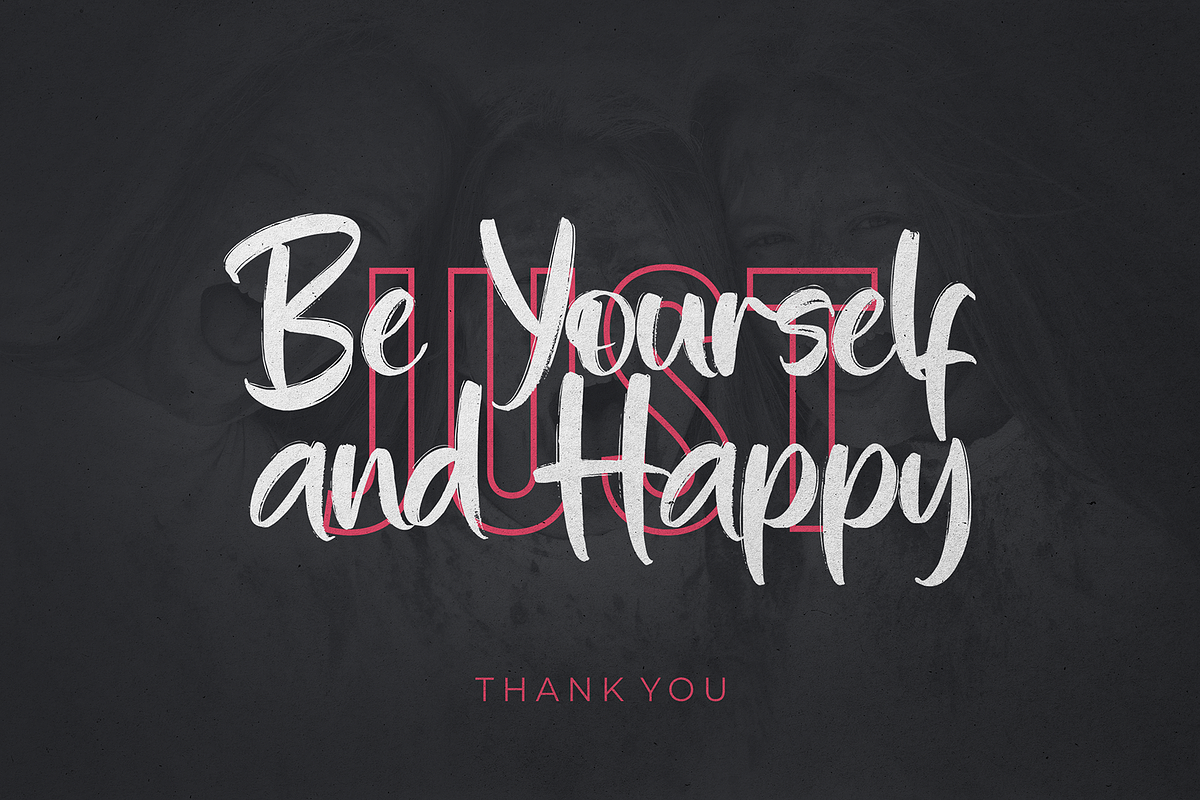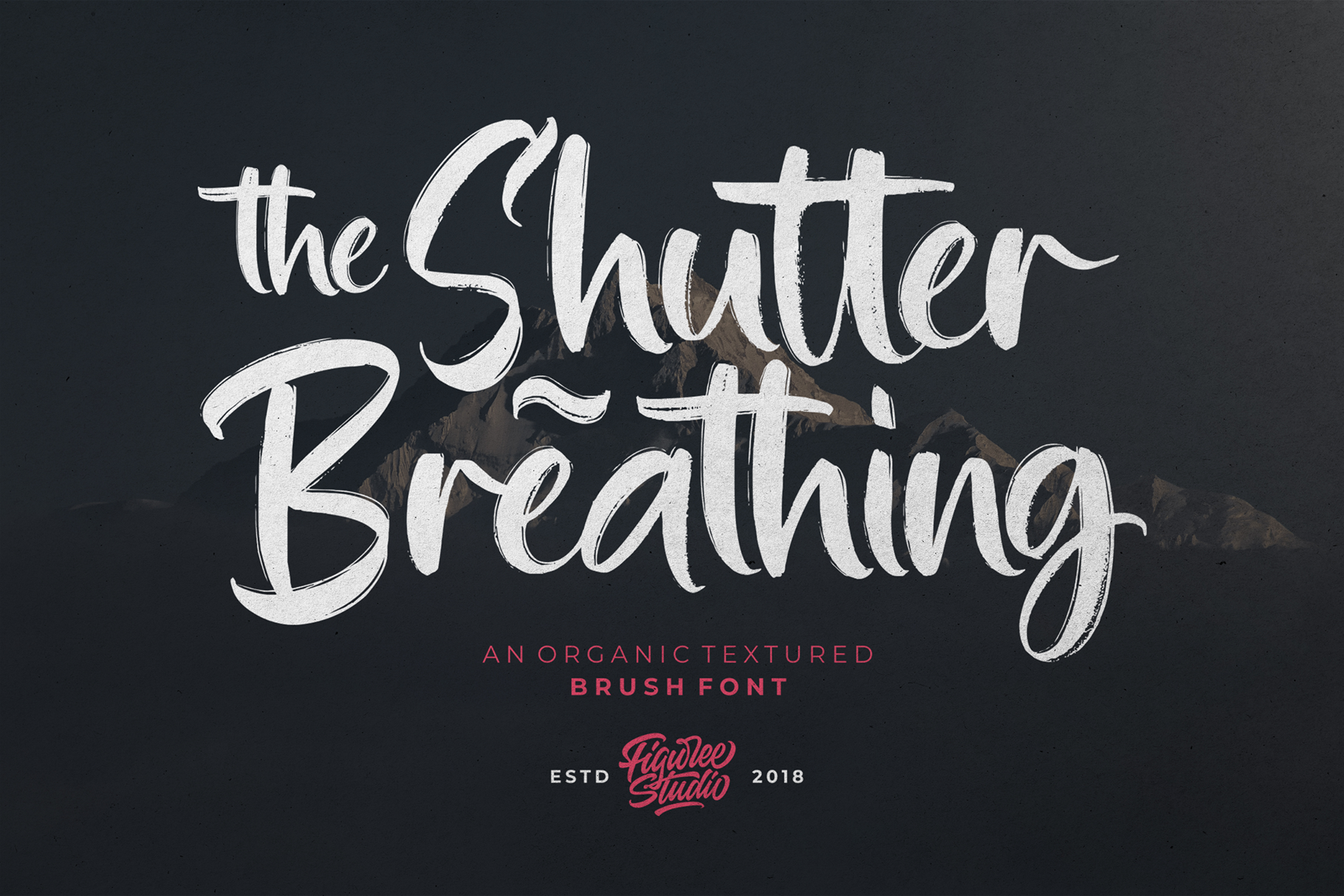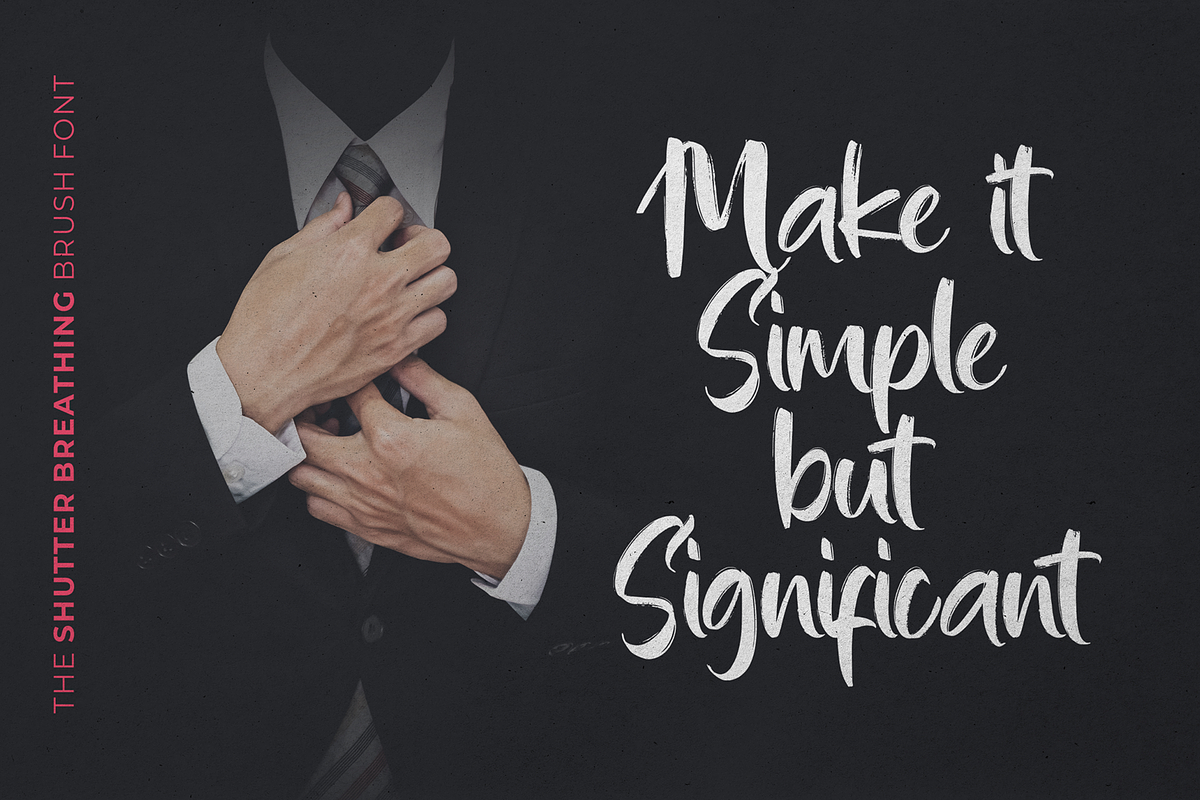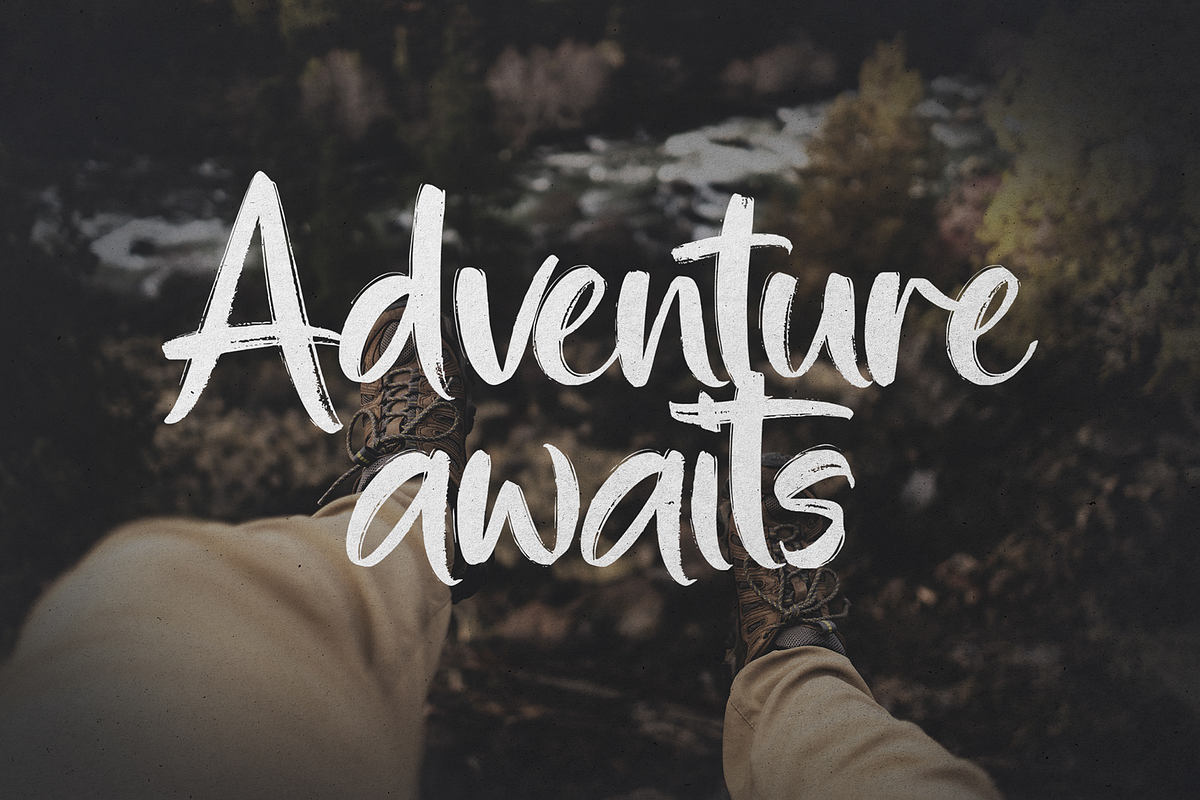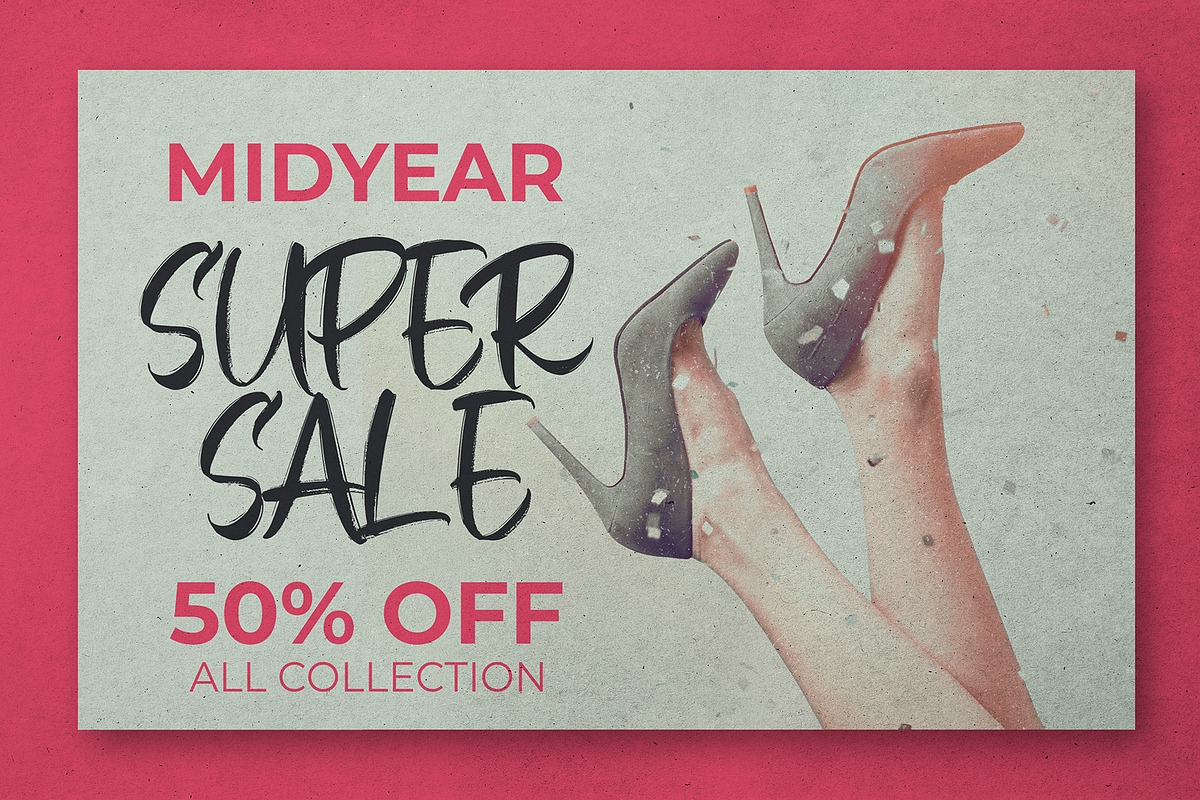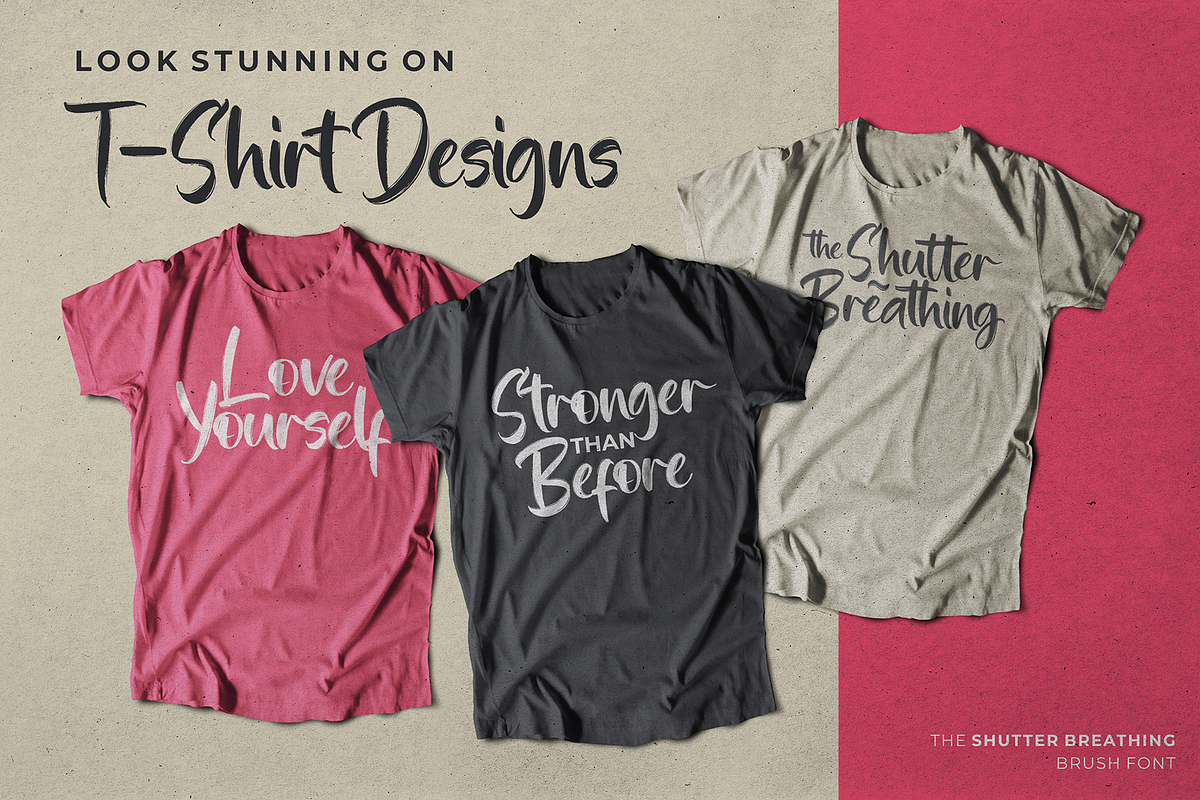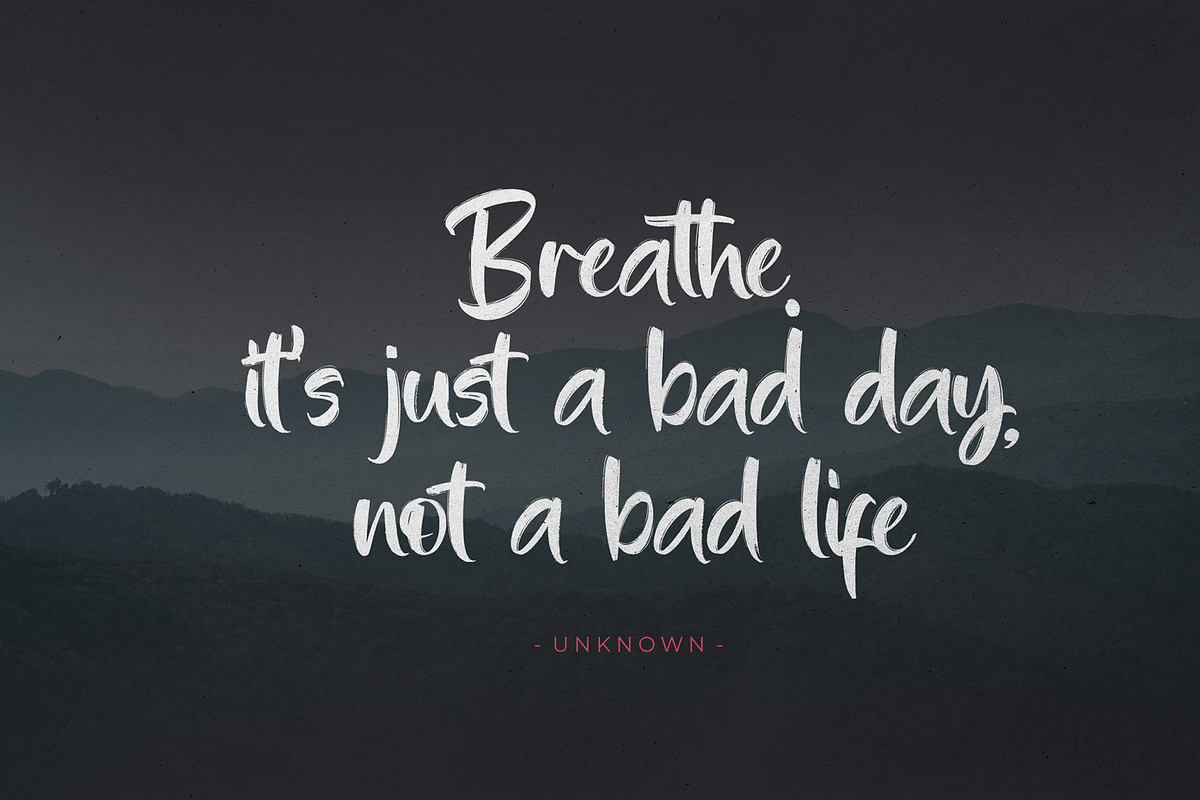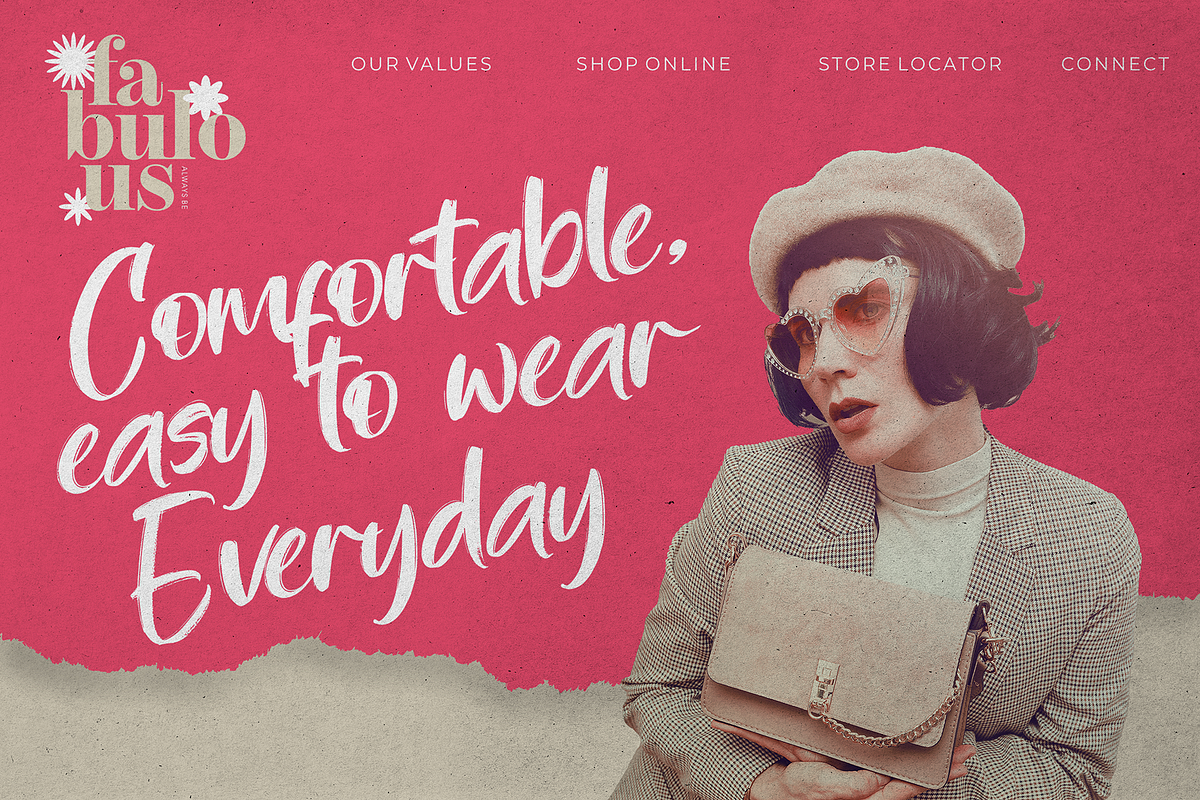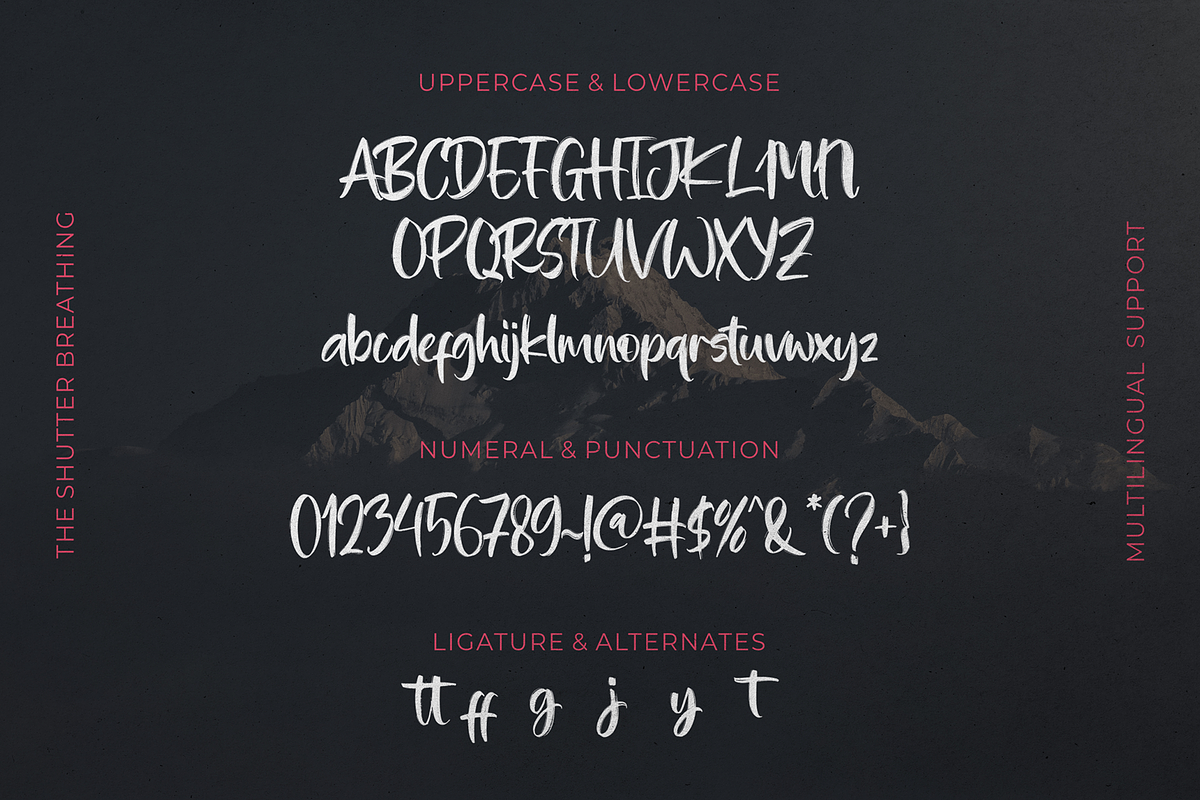
The Shutter Breathing - Brush Font
Introducing Shutter Breathing, the latest addition to our font collection. This stunning organic brush font has been designed with precision and care to bring your creative projects to life.
With its natural and authentic look, Shutter Breathing is perfect for any project that requires a touch of originality and uniqueness. From branding and marketing materials to social media posts and personal projects, this font is versatile and perfect for all your needs.
Crafted by our team of expert designers, Shutter Breathing is a font that breathes life into your projects. Its hand-drawn design and organic brush strokes give it a natural and authentic feel, making it stand out from the crowd.